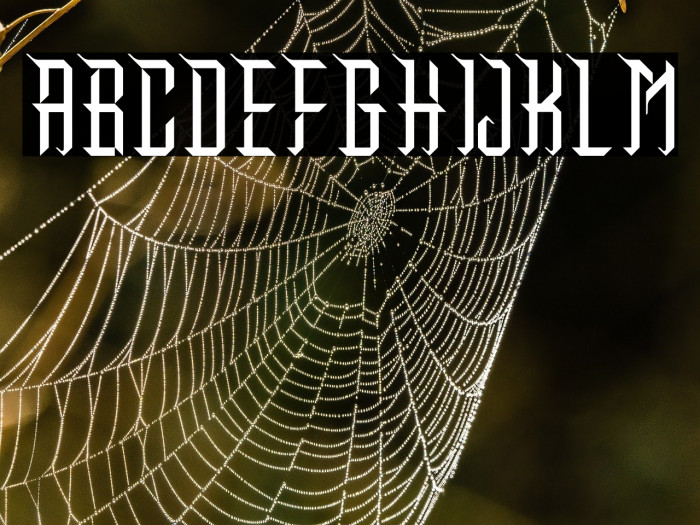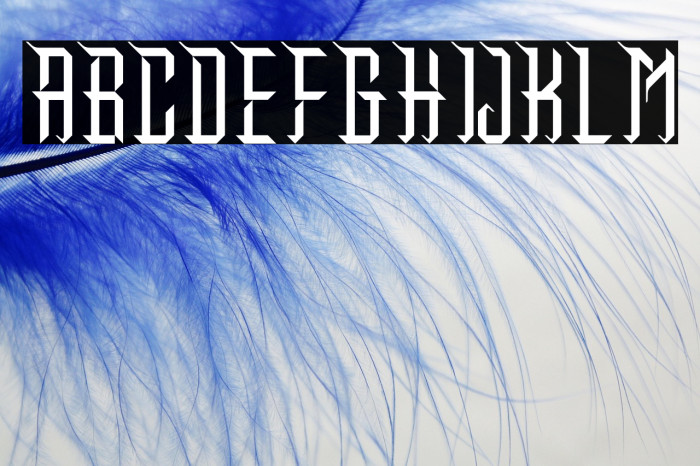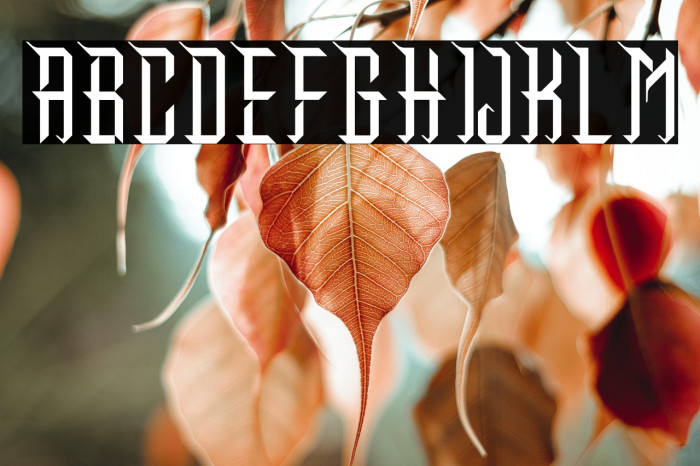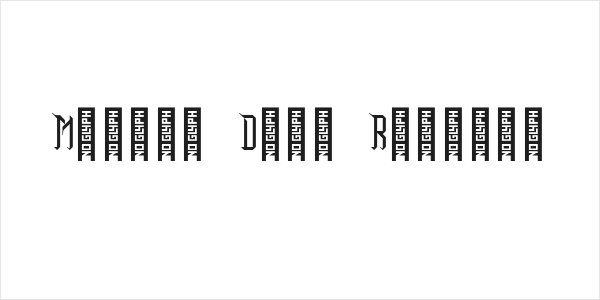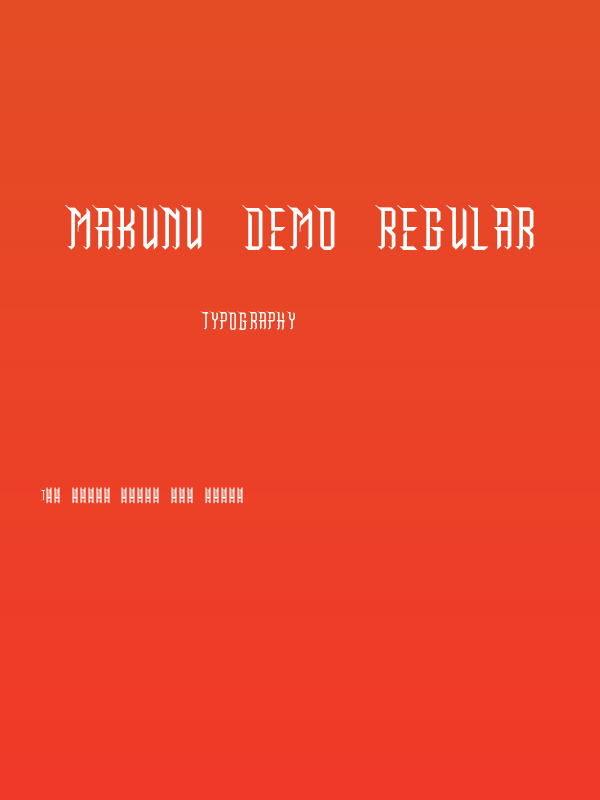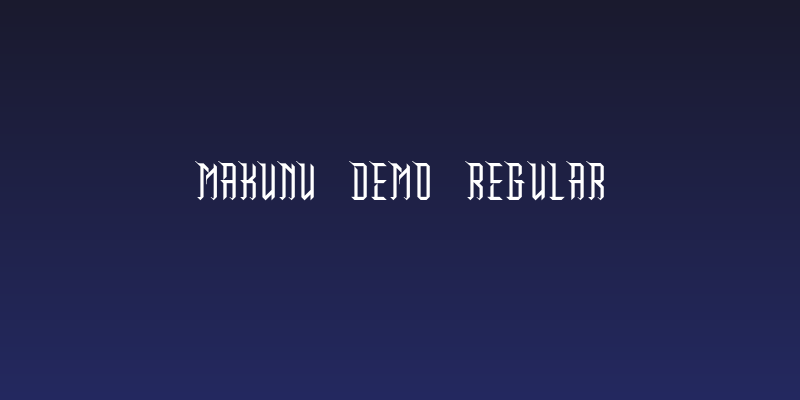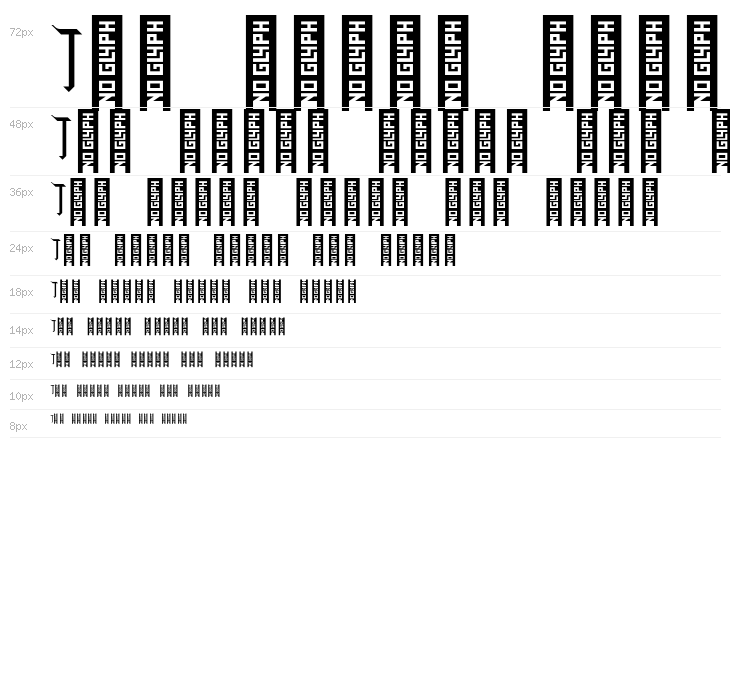
Makunu Demo Regular Font
Makunu Demo Regular Description
This font features a bold and angular design, reminiscent of Gothic or Blackletter styles. The characters are sharply defined with a high contrast between thick and thin strokes, giving it a dramatic and impactful appearance. The uppercase letters are particularly striking, with pointed serifs and a strong vertical emphasis. The overall style is both modern and vintage, making it versatile for various design applications. The font's unique character shapes and bold presence make it suitable for projects that require a strong visual impact.
| Overall Style | Modern, Vintage |
| Proposed Projects | Ideal for branding, posters, album covers, and any design requiring a bold, dramatic typeface. |